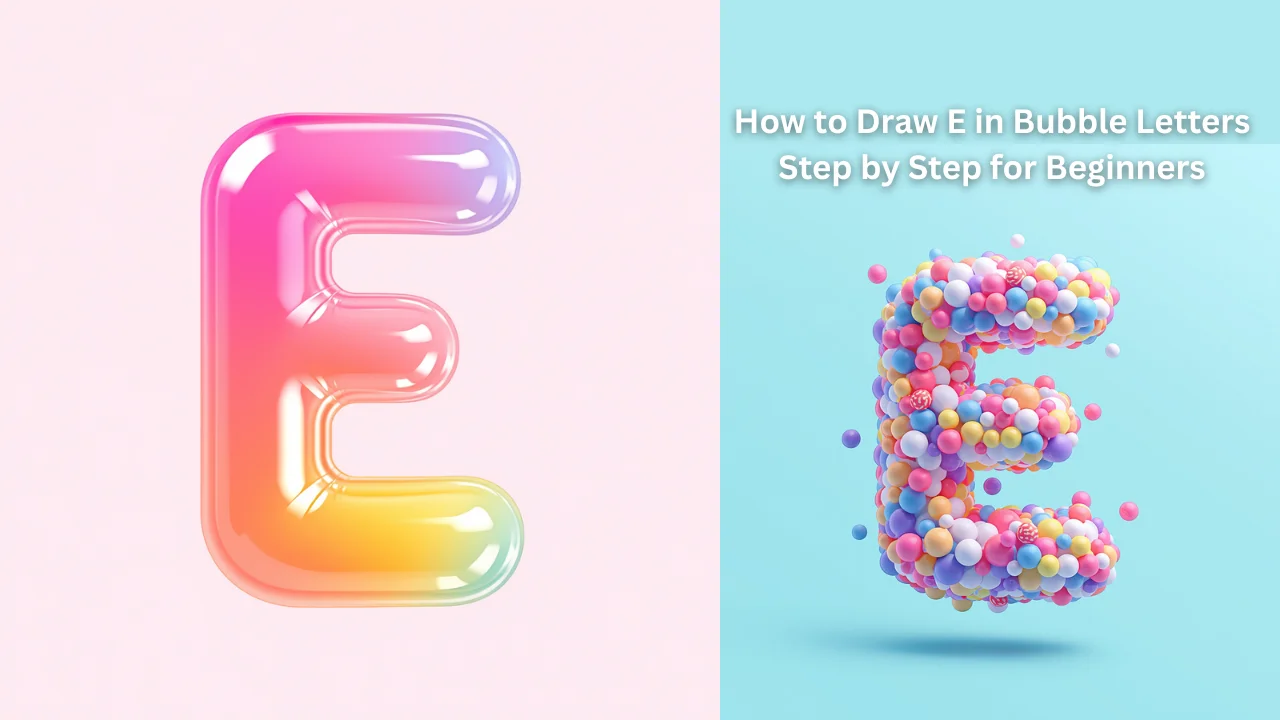
How to Draw E in Bubble Letters Step by Step for Beginners
Learning how to draw letters in creative ways can improve your art skills and boost your imagination. One of the most fun styles is bubble letters because they look soft and bold. Many beginners start with simple shapes before moving to detailed designs. This guide explains how to create e in bubble letters in an easy and clear way.
Bubble letters are popular in school projects, posters, and digital art. They are simple to draw and allow endless creativity. You can use them for decorations or personal designs. Understanding e in bubble helps you build a strong base for drawing other letters.
What Are E In Bubble Letters
Bubble letters are thick and rounded letters that look like they are filled with air. They do not have sharp corners, which makes them look friendly and fun. Artists use them in graffiti, signs, and creative projects. Learning e in bubble is a great starting point for beginners.
These letters are easy to customize with colors and patterns. You can make them simple or detailed depending on your style. Bubble letters are perfect for both kids and adults. They help improve drawing confidence.
Why Learn This
Learning e in bubble improves your creativity and drawing skills. It helps you understand shapes, curves, and spacing. Many beginners choose this style because it is simple and enjoyable. It also allows you to express your ideas visually.
This skill is useful for school and art projects. You can create posters, greeting cards, and decorations. It is also helpful for digital design work. Learning one letter makes it easier to draw the rest.
Basic Shape of the Letter E
Before drawing bubble letters, you must understand the basic shape of the letter E. The letter has one vertical line and three horizontal lines. This simple structure helps you build the bubble form. Drawing the base is the first step in creating e in letters.
Use light pencil strokes when drawing the basic shape. This allows you to fix mistakes easily. Keep the lines simple and clear. A strong base makes the final design better.
Step by Step Guide
Start by drawing a normal capital or lowercase letter E. Then add a rounded outline around the shape. Make sure all edges are curved and smooth. This is the key step in forming e in letters.
After outlining, erase the inner lines carefully. You will see a bold and soft letter shape. Adjust the curves if needed to make them even. This step creates a clean and attractive look.
StepActionTip
1Draw basic EKeep lines light
2Add outlineUse smooth curves
3Erase inside linesClean shape
4Adjust edgesMake it balanced
5Add designUse colors or patterns
This table helps beginners understand the process quickly. Following these steps makes drawing easier. Practice improves your results over time.
Styling Ideas
Once you learn the basic form, you can add styles to your design. Try adding patterns like dots or stripes inside the letter. You can also use bright colors to make it stand out. Practicing bubble letters helps you explore different creative ideas.
Shading adds depth and makes the letter look 3D. You can add shadows on one side for a realistic effect. Highlights can make the letter look shiny. Creative styling makes your artwork unique.
Common Mistakes to Avoid
Many beginners make simple mistakes when drawing bubble letters. They often create sharp edges instead of smooth curves. Another mistake is making uneven outlines. When drawing bubble letters, focus on balance and smoothness.
Avoid pressing too hard with your pencil. This makes it hard to erase mistakes. Do not rush the process. Take your time to improve your design.
Common Mistakes and Solutions
MistakeProblemSolution
Sharp edgesLetter looks roughUse curved lines
Uneven outlineShape looks offDraw slowly
Dark sketch linesHard to fix errorsUse light strokes
RushingPoor designPractice patiently
Practice Tips for Beginners
Practice is the key to mastering e in bubble letters. Draw the letter many times using different sizes and styles. Try both uppercase and lowercase forms. This helps you understand the shape better.
Set a daily practice routine for better results. Even short practice sessions can improve your skills. Use reference images for inspiration. Keep your drawings simple at first.
Benefits
Learning bubble letters improves your creativity and confidence. It helps you understand design and spacing. This skill is useful for school and personal projects. It also makes drawing more fun and relaxing.
Bubble letters allow you to express your ideas in a creative way. They are easy to learn and enjoyable to practice. Many artists use them in different projects. This makes them a valuable skill to learn.
Using Bubble Letters for Projects
You can use bubble letters in many creative ways. It is perfect for posters, banners, and greeting cards. You can also use it in digital designs and social media posts. This makes your work look more attractive and engaging.
Teachers and students often use bubble letters in school projects. They make presentations more colourful and fun. Designers also use them for logos and artwork. This style is both practical and creative.
Conclusion
Learning e in bubble letters is simple and fun for beginners. It starts with a basic shape and grows into a creative design. With practice, you can improve your skills and create unique artwork. Keep your lines smooth and your ideas creative. Bubble letters offer endless possibilities for design and creativity. They are easy to learn and useful in many projects. By practicing regularly, you can master this style quickly. Start today and enjoy the process of creating beautiful bubble letters.